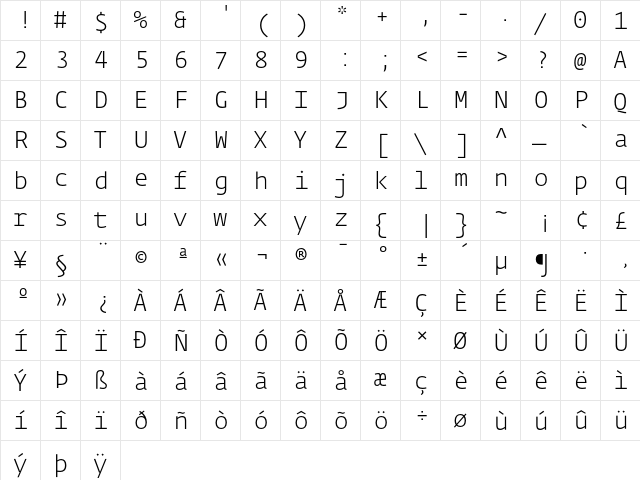
Fedra Mono Light
Design Context for Fedra Mono Typeface
Fedra Mono uses fixed-width spacing throughout, giving it the structured, systematic character associated with coding environments and technical documentation. Its slender proportions lend an understated elegance to any composition.
Pro Tip: Pair Fedra Mono with a proportional sans for UI contexts where code-style labels and regular body copy need to coexist.